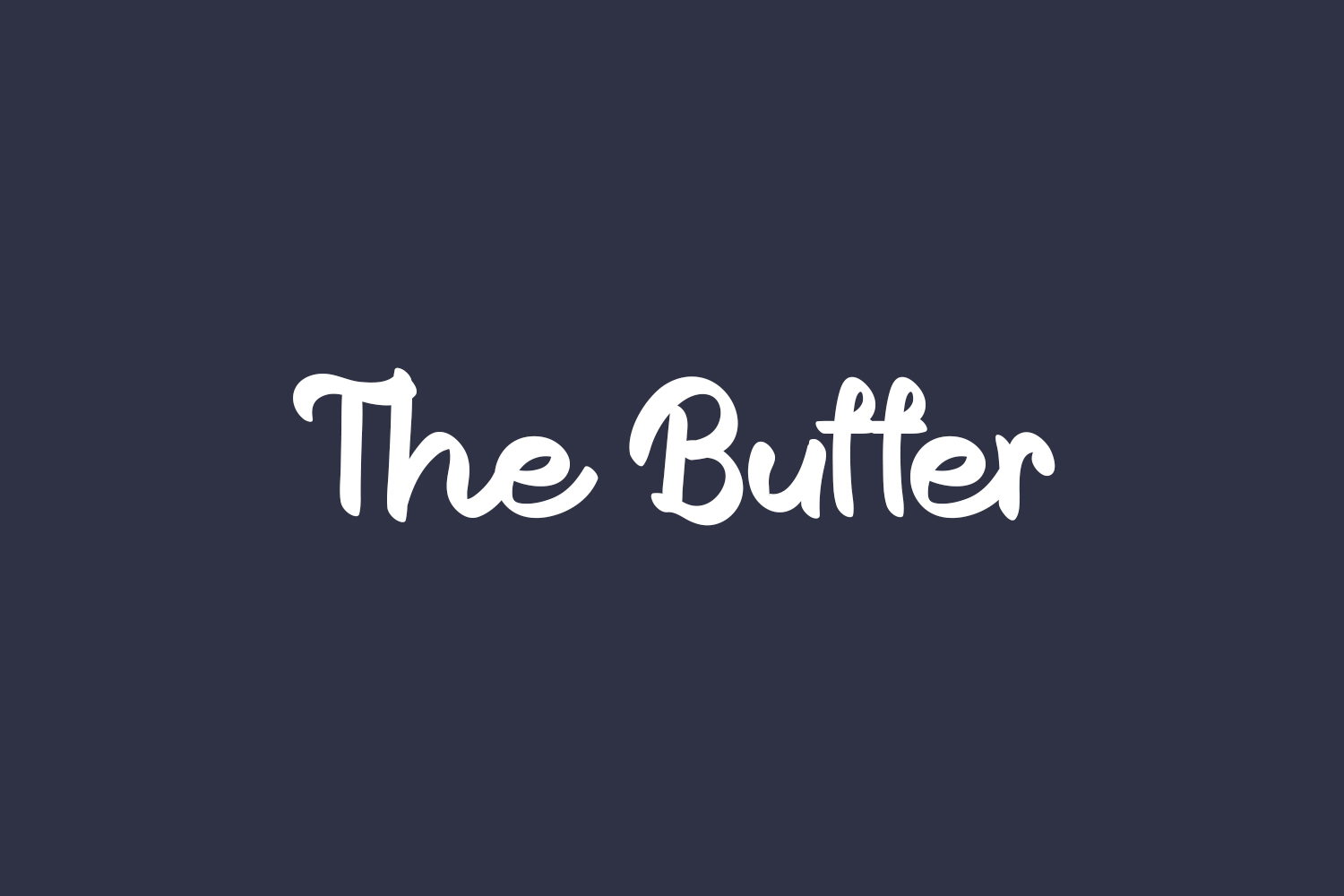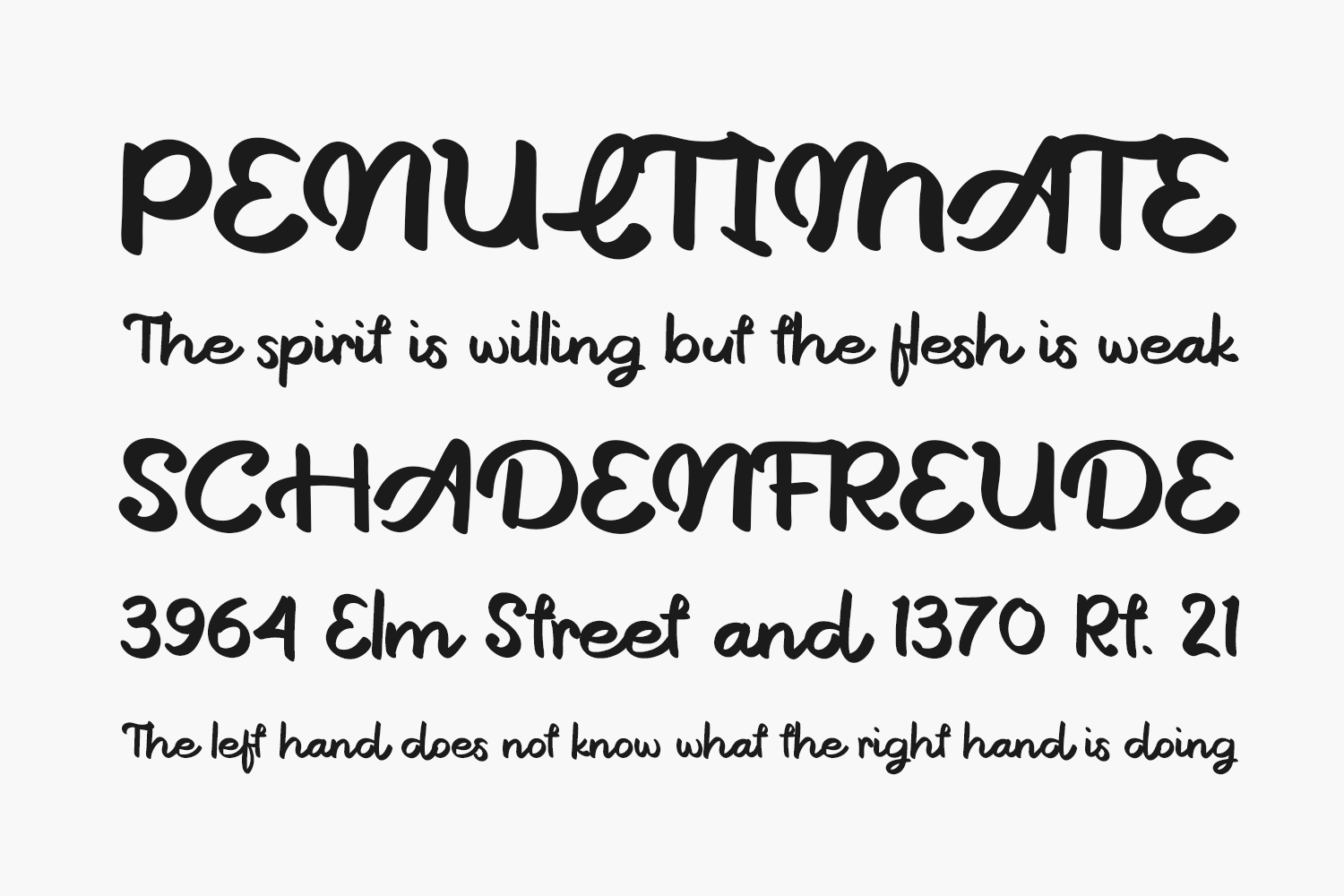
The Butter Free Font is a sweet and cursive handwritten font. This gentle font will look gorgeous on a variety of design ideas. It will add a joyful and romantic touch to each of your projects. The Butter Free Font was designed by Kateeng Ciu and is free for personal use only. Please purchase the full version for commercial use.